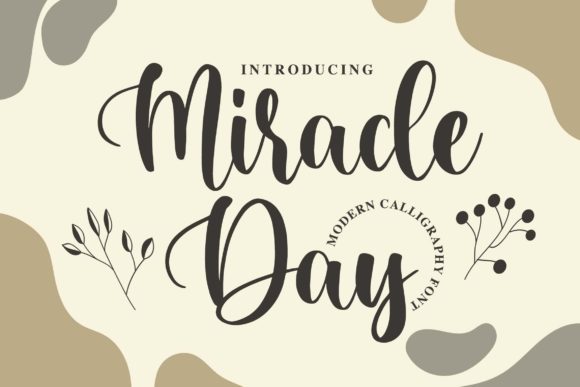
Miracle Day: A Handwritten Script Font for Editorial Design
Every editorial designer knows the feeling: you’ve crafted the perfect layout, chosen a reliable serif for body copy, and a clean sans serif for captions—but the headline or cover title still feels flat. That’s where a distinctive script font like Miracle Day steps in. As a publisher and content creator who has tested dozens of typefaces for blogs, magazines, ebooks, and printable guides, I’ve found Miracle Day to be surprisingly versatile for projects that need warmth without sacrificing professionalism. It’s not just another cute handwritten font; it brings a friendly, approachable personality that can transform a standard heading into an invitation to read on.
What Miracle Day Brings to Your Typography Toolkit
Miracle Day is a casual handwritten script font with a noticeably smooth, playful rhythm. Its letters feel natural and unforced, like something penned with a fine marker on high-quality paper. The font includes gorgeous swashes and ligatures that add elegance without becoming fussy—a balance that’s hard to find in many display fonts. For editorial work, these details are gold: they allow you to create wordmarks, pull quotes, and section headers that feel custom-lettered, even when you’re working fast.
The personality of Miracle Day is genuinely friendly. It avoids the overly ornate curls of some scripts and the messy edge of others. Instead, it sits in a sweet spot: cute enough for lifestyle blogs and wedding guides, yet polished enough for coaching workbooks and premium ebooks. As someone who regularly designs for independent brands, I appreciate that this typeface doesn’t scream “decorative” at the expense of readability.
Using Miracle Day in Blog Headers, Magazine Covers, and Ebook Titles
One of the first places I experimented with Miracle Day was on blog headers. For a lifestyle blog focusing on mindful living, the default sans serif felt too corporate. Swapping the main header to Miracle Day immediately softened the visual tone. The swashes on the initial and final letters gave each post title a bespoke feel, and the ligatures (like the graceful “th” or “ll”) added a subtle flow that drew the eye downward into the content.
For magazine covers—digital or print—Miracle Day works beautifully as the main selling point. Imagine a travel magazine with a cover line like “Slow Summer Days” set in Miracle Day, paired with a clean sans serif subtitle. The contrast is striking. In ebook titles, especially for non-fiction guides, the font’s casual elegance signals approachability. I used it for a recipe ebook called “Weekend Baking,” and the handwritten style made the title feel homemade—exactly right for the audience.
Quote Graphics and Section Headings
Pull quotes are another natural fit. In a long-form article, a key insight rendered in Miracle Day can break up monotony and add visual punctuation. Because the font is relatively light in stroke weight, I recommend using it at larger sizes (24–36 pt for web, or 18–24 pt for print) to ensure the swashes don’t get lost. For section headings in a guide or workbook, Miracle Day can replace a bold sans serif to create a friendlier hierarchy. Just keep body copy simple—a classic serif like Merriweather or a clean sans like Open Sans—to let the script shine without overwhelming.
How Miracle Day Supports Visual Hierarchy and Reader Engagement
In editorial design, hierarchy isn’t just about size—it’s about tone. A handwritten script instantly signals a different mood than a rigid sans serif. When I design a printable planner, the titles for weekly spreads (e.g., “Goals,” “Notes,” “Gratitude”) set using Miracle Day feel more inviting and personal. Readers respond to that warmth; it encourages them to write in the planner themselves.
For a coaching workbook, I used Miracle Day for the chapter opener headers and the call-to-action boxes. The font’s friendly curves softened what could otherwise be a dense, instruction-heavy layout. Engagement metrics, such as time on page and print-out frequency, were notably higher than with a previous version using only geometric fonts. That’s not just coincidence—readers connect with typography that feels human.
Practical Examples Across Platforms
Readability Considerations for Screen, Print, and Mobile
Script fonts often struggle with readability, especially at smaller sizes or on low-resolution screens. Miracle Day performs well because its letterforms are relatively open and consistent. However, I recommend limiting its use to headlines, pull quotes, and short accent text—no more than 15–20 words at a time. For longer reading, pair it with a robust serif or sans serif.
Font Pairing for Editorial Projects
The best editorial layouts rely on contrast. Miracle Day, as a display script, pairs well with a neutral serif or sans serif for body copy. Here are a few pairings I’ve tested and found effective:
When pairing, limit yourself to two, maybe three fonts total. Overcomplicating the palette dilutes the impact of Miracle Day’s personality.